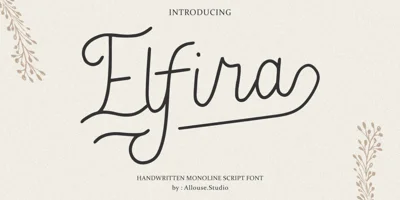
Elfira Font
Elfira Font is ideal for enchanted forest themes, fantasy wedding invitations, elven mythology books, magical skincare branding, fairy tale theater productions, mystical wellness centers, ancient forest conservation materials, ethereal music album covers, botanical art galleries, and any magical project that celebrates the timeless wisdom and natural elegance of ancient woodland spirits.
What makes Elfira Font exciting is its ethereal grace that captures the ancient wisdom of forest dwellers and the timeless elegance of elven civilization. This typeface embodies the mystical beauty of enchanted woodlands with flowing letterforms that seem carved from moonbeams and whispered by woodland spirits. The font's enchanted character makes it perfect for brands and projects that want to communicate natural wisdom, ancient magic, and the serene beauty of harmonious living with nature.
The Elfira Font family includes multiple weights and mystical variations, featuring light, regular, and bold versions along with ornamental flourishes and alternate characters inspired by ancient elven scripts and natural botanical forms. This comprehensive collection allows designers to create enchanting typography that maintains the font's signature magical character while providing flexibility for various fantasy and nature-inspired design applications.
When exploring authentic fantasy typography, Elfira Font offers designers an exceptional opportunity to work with a typeface that genuinely captures the spirit of elven elegance and forest magic. This font demonstrates innovative design thinking by incorporating the organic flow and natural grace that define both ancient woodland cultures and the timeless appeal of fantasy storytelling.
Professional designers appreciate Elfira Font for its ability to instantly transport audiences to realms of natural magic and ancient wisdom across various media platforms. The font's mystical character makes it particularly effective for wellness brands, fantasy entertainment, and eco-luxury products seeking to establish connections with audiences who value natural beauty, environmental consciousness, and the magical aspects of life.
The timeless appeal of Elfira Font lies in its perfect representation of natural harmony and ancient wisdom that continues to inspire people seeking deeper connections with nature and mythological traditions. This typeface serves as a bridge between the modern world and ancient forest wisdom, making it invaluable for projects celebrating environmental stewardship and fantasy heritage.
For creative professionals working with fantasy and nature-focused brands, Elfira Font represents the ultimate typography solution that brings authentic elven elegance and forest magic to any application, ensuring designs reflect the serene wisdom and natural beauty that define the most cherished fantasy traditions and environmental consciousness.